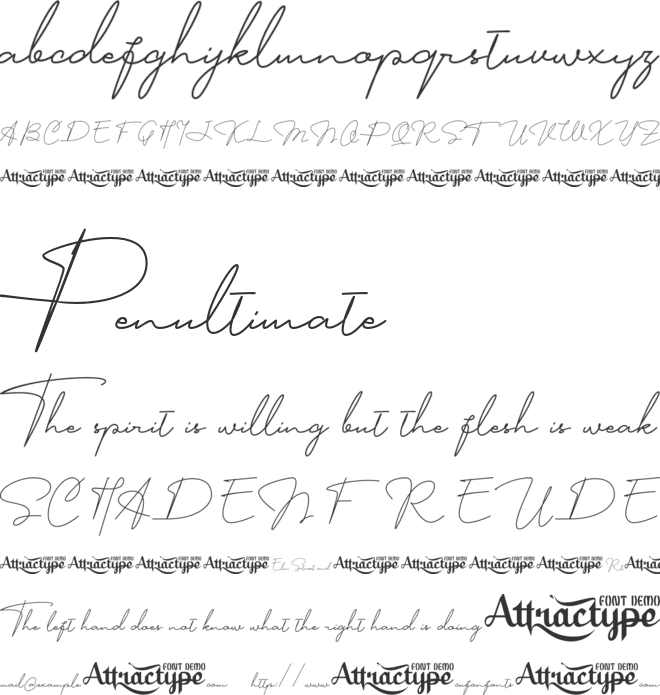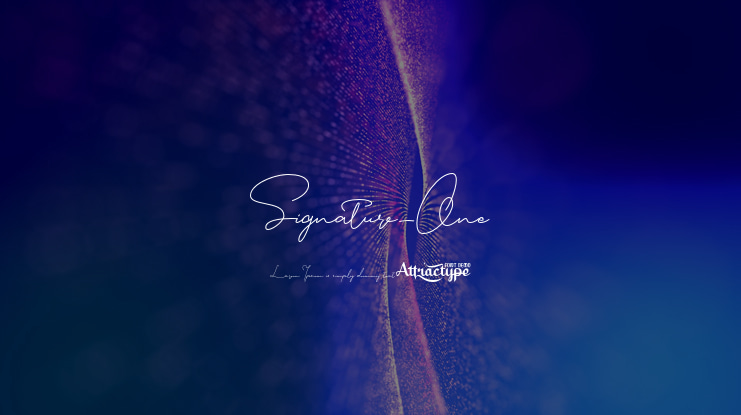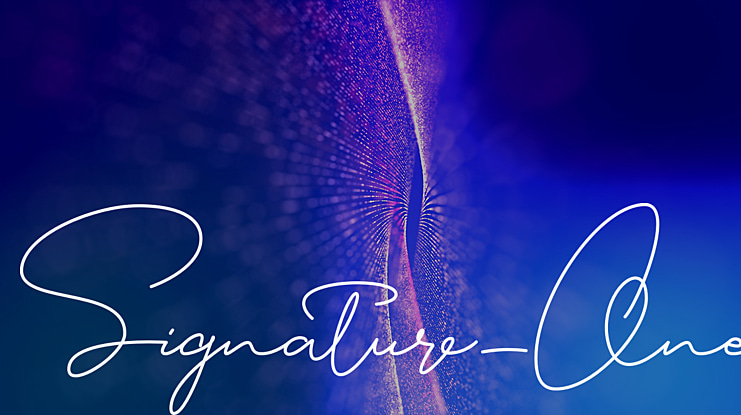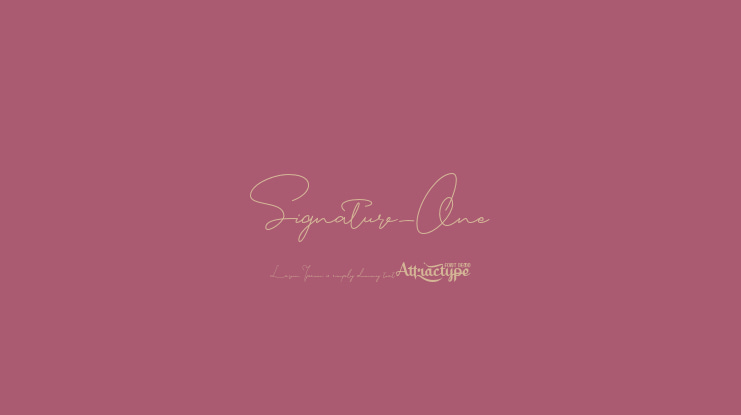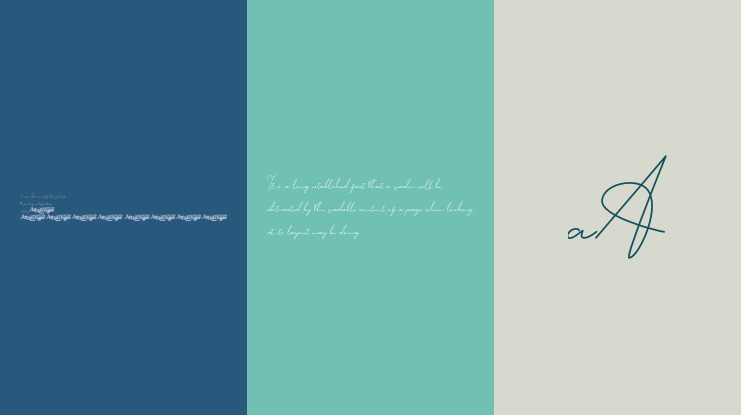
Signature_One Font
This is a beautiful signature font for a variety of designs. The handwritten monoline style make this font looks elegant, natural, stylish and perfect for any awesome projects that need handwriting taste.
Signature One would perfect for photography, watermark, social media posts, advertisements, logos & branding, invitation, product designs, label, stationery, visiting card, wedding designs, product packaging, special events or anything that need handwriting taste.